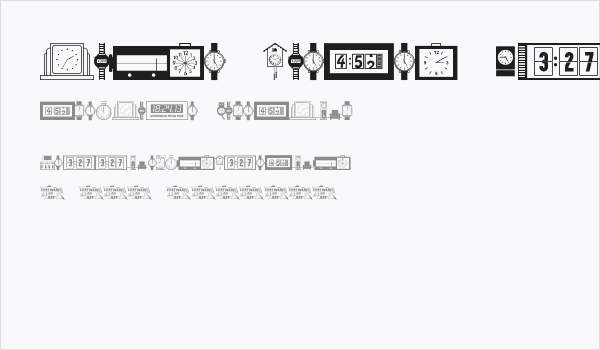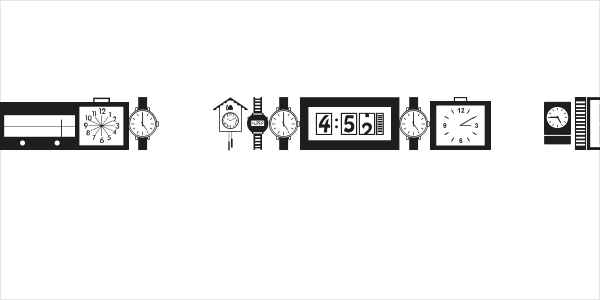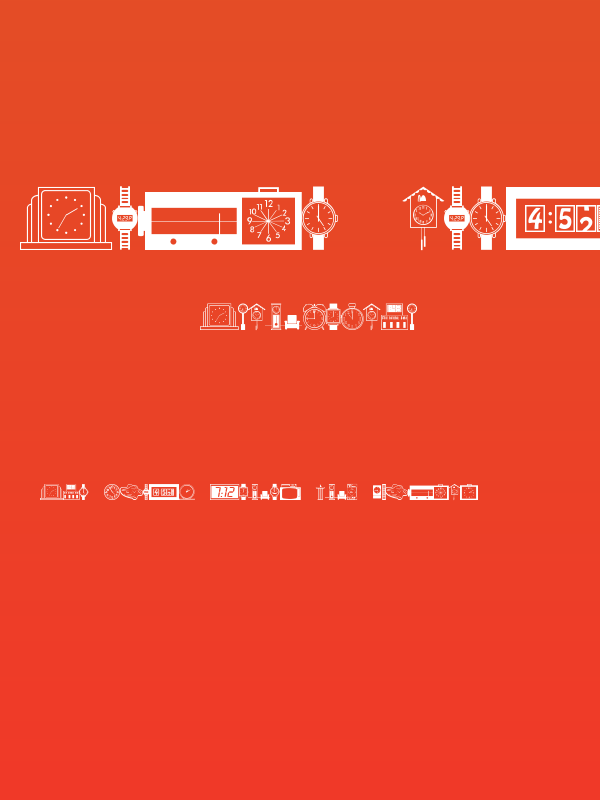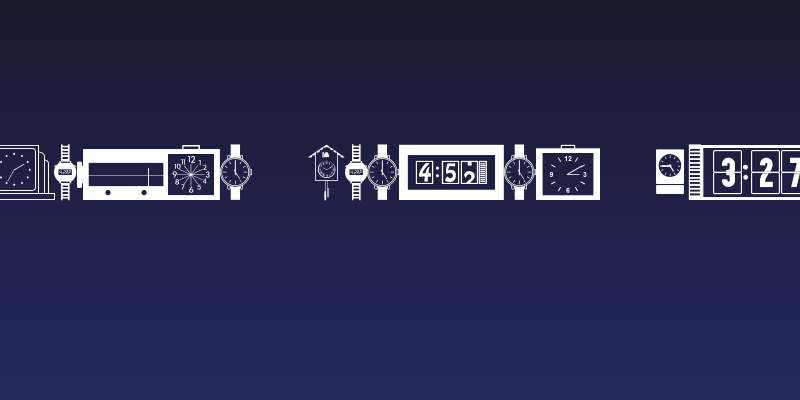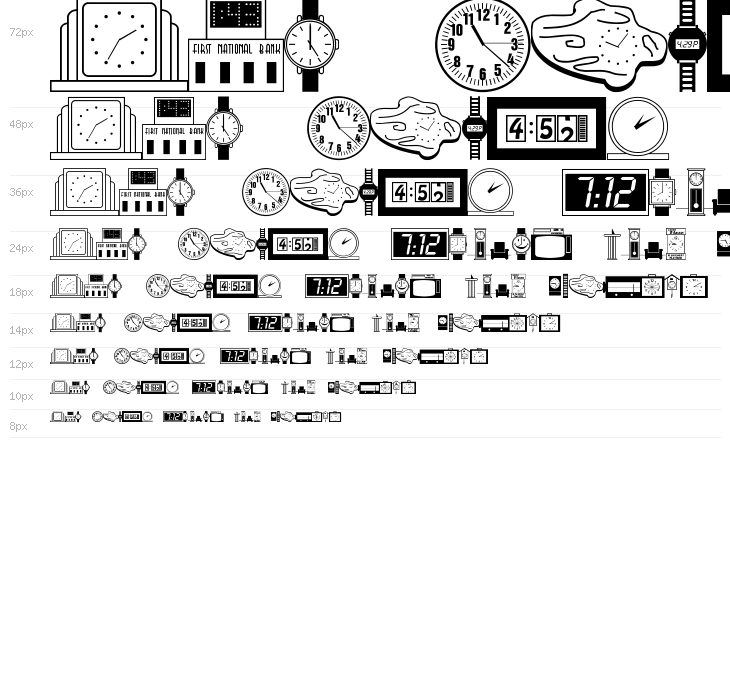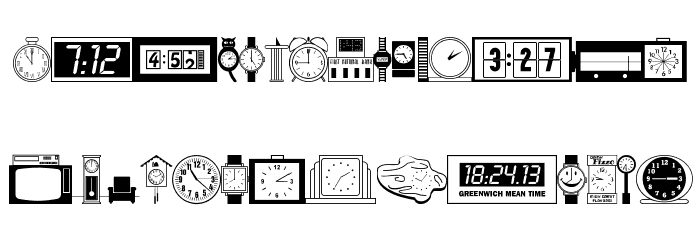
Time Pieces JL Font
Time Pieces JL Description
This is not a traditional font but rather a collection of timepiece illustrations. The design features a variety of clocks and watches, each with distinct styles ranging from digital displays to analog faces. These illustrations are detailed and varied, showcasing different types of timekeeping devices, including digital clocks, wristwatches, and wall clocks. The style is playful and decorative, making it suitable for creative projects that require a time-related theme.
| Use Case | Decorative elements, Themed designs |
| Proposed Projects | Ideal for creative projects such as posters, educational materials about time, or themed event invitations. |